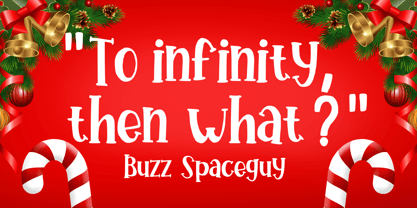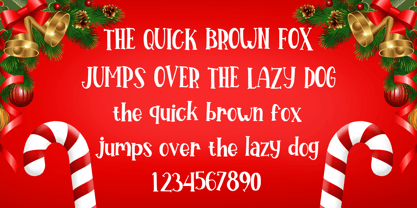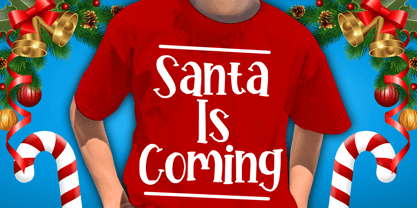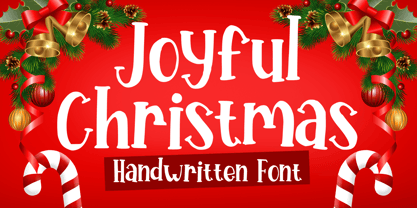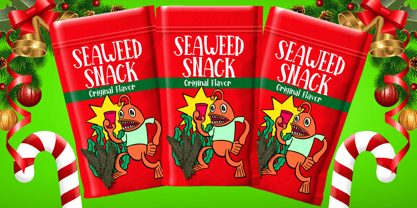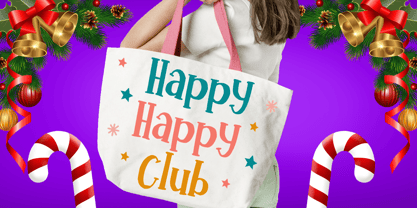
Joyful Christmas
by Mvmet
The Joyful Christmas Font Family was designed by Gabriel Valentinus and published by Mvmet. Joyful Christmas contains 1 styles. More about this family
Joyful Christmas is your perfect Christmas font! it’s versatile and fun to use handwritten font. It will elevate a wide range of design projects to the highest level. You can use this font for many design ideas such as stickers, t-shirt designs, amazing logo designs, magazine or book covers, comics, cartoon drawings, daily typing, and many more. This font will add a super cool touch to your designs!
Designers: Gabriel Valentinus
Foundry: Mvmet